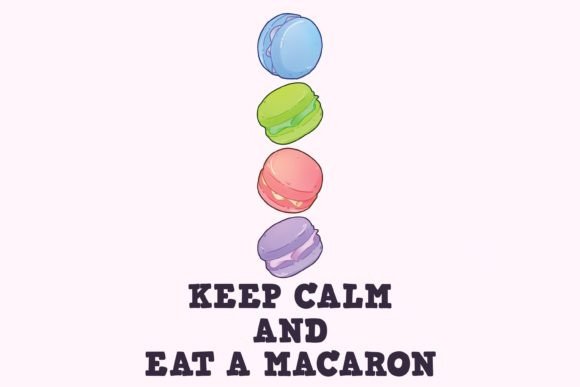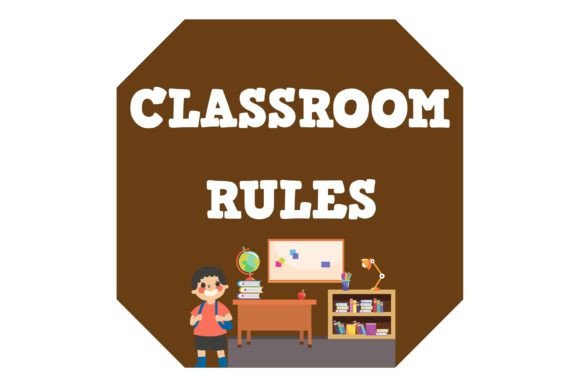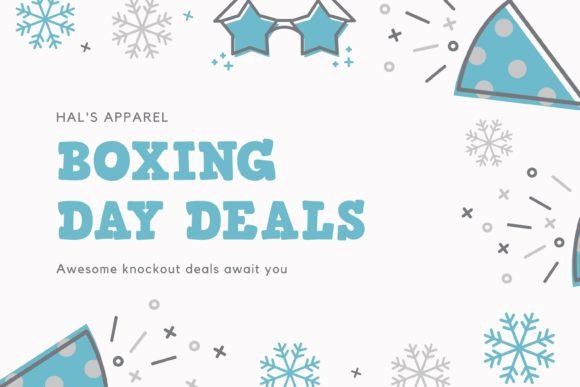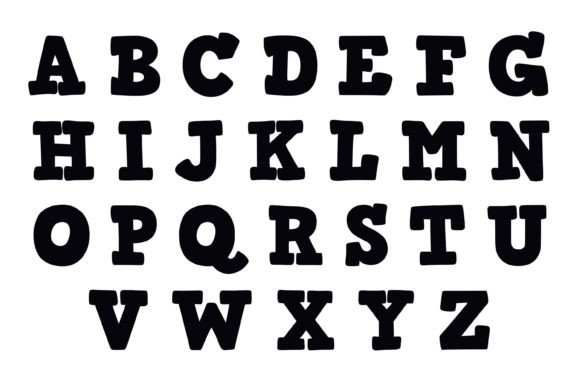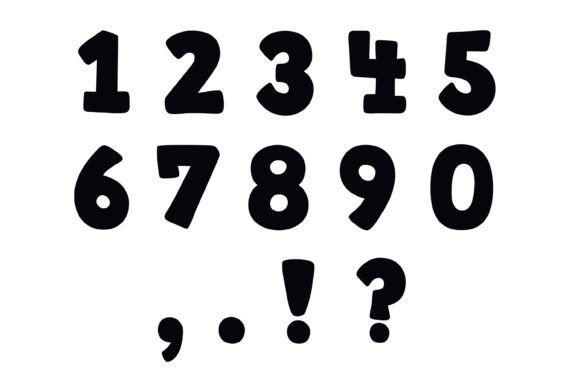
Introduction to Mr.james Font
Have you ever stumbled upon a font that instantly sparks creativity? For designers, finding the perfect font can be a game-changer. It’s the difference between a good project and a great one. For me, it was the day I discovered Mr.james Font – a charming serif cartoon display font that’s perfect for kid artworks and school-related projects.
With its easy-to-read design, Mr.james Font is an excellent resource for designers looking to create engaging and high-quality content. Whether it’s a poster design, stickers, or t-shirts, this font is sure to bring a touch of whimsy and personality to any project. Plus, its transparent background makes it a breeze to work with, and the best part? It’s available for free download!
As a valuable addition to any designer’s toolkit, Mr.james Font is a must-have for anyone looking to elevate their creative projects. Its versatility and charm make it an ideal choice for designers of all levels, from beginners to seasoned pros.
Key Features of Mr.james Font
- Designed with a unique, modern aesthetic for a distinctive look
- Perfect for logos, branding, and other design elements requiring a sophisticated touch
Honest Review: Mr.james Font
As a designer, I’ve come across my fair share of fonts, but Mr.james Font caught my attention due to its unique aesthetic and versatility. This font is perfect for creative projects that require a touch of elegance and sophistication.
What works well with Mr.james Font is its ability to seamlessly blend with various design styles, from modern to classic. The high-quality typography and attention to detail make it a valuable resource for designers. I particularly appreciate its transparent background, which allows for effortless customization.
Here are some key features that I like about Mr.james Font:
- ✨ High-quality typography that’s perfect for creative projects
- ✨ Versatile design that suits various styles
However, I do have some concerns about Mr.james Font:
- ⚠️ Limited font sizes available (only 2 sizes)
- ⚠️ No bold or italic versions available
Overall, I’m impressed with Mr.james Font’s potential, but it’s essential to consider its limitations before using it for your design projects. With some tweaks and modifications, this font can be a valuable addition to your design resource library.
Tips for Getting the Most Out of Mr.james Font
For the best results, use Mr.james Font with a transparent background to create a seamless design. You can also experiment with different font sizes and styles to add visual interest to your design. Additionally, consider using Mr.james Font in combination with other design resources to create a unique and high-quality design.
Mr.james Font is ideal for use in a variety of creative projects, including logos, brochures, business cards, and social media graphics. Its high-quality design and transparent background make it a popular choice among designers and non-designers alike.